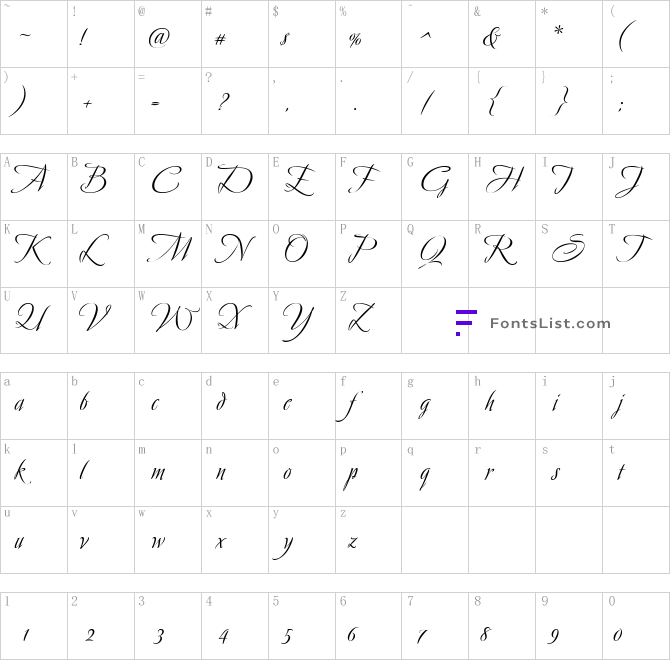
- Font Name:Avalon Medium
Avalon-Medium.ttf is a very beautiful artistic font, Avalon-Medium.ttf is widely used in the design and printing of various books and pictures,Avalon-Medium.ttf has a strong visual impact,Avalon-Medium.ttf is a commonly used font in newspapers, magazines and books, and is used in posters, e-commerce Poster design, store design, logo design, font design and other fields.Avalon-Medium.